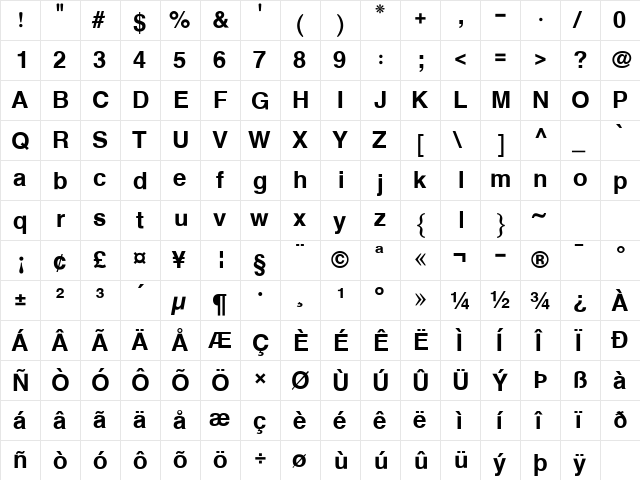
XB Riyaz Bold
| Foundry | Irmug.org |
| Designer | Behnam |
Design Context for XB Riyaz Typeface
XB Riyaz takes a measured approach to typography — its balanced proportions and neutral character make it a reliable workhorse for both digital and print work. Its bold stroke weight gives it real presence on the page.